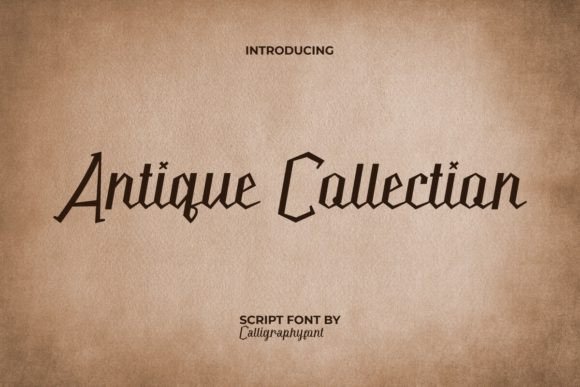
The Hunt for the Perfect Font: How Antique Collection Font Stole My Heart
I still remember the frustration of scrolling through font after font, searching for the perfect one to bring my design project to life. As a designer, I’ve had my fair share of late nights, sipping coffee and browsing through font libraries, trying to find that one font that will make my project stand out. My client was looking for a unique, vintage feel that would give their brand a touch of elegance and sophistication. That’s when I stumbled upon Antique Collection Font, a vintage script font that has a unique appearance with letters that form a hexagon and sharp lines, giving it an unmistakable antique feel.
First Impressions: What I Love About Antique Collection Font
As soon as I saw Antique Collection Font, I knew I had found something special. Here are a few things that I love about this font:
- ✨ Unique Hexagonal Letters: The hexagonal shape of the letters gives the font a distinctive look that’s hard to find elsewhere.
- ✅ Sharp Lines: The sharp lines and edges of the font give it a crisp, clean look that’s perfect for designs that need a bit of edge.
- 💫 Antique Feel: The font has a genuine antique feel that adds a touch of elegance and sophistication to any design.
- 🎨 Versatility: Antique Collection Font is perfect for a wide range of creative projects, from brand logos and catalogs to invitations and packaging design.
While Antique Collection Font is an amazing font, there are a few quirks to consider:
- 🤔 Legibility at Small Sizes: While the font looks great at larger sizes, it can be a bit tricky to read at smaller sizes. Be sure to test it out at different sizes to ensure it works for your project.
- ⚠️ Limited Use in Body Text: While Antique Collection Font is perfect for headlines and titles, it may not be the best choice for body text. Its unique shape and sharp lines can make it difficult to read in large blocks of text.
One of the best things about Antique Collection Font is its OpenType features and glyphs. Here are a few tips for getting the most out of these features:
- 🌟 Stylistic Alternates: Experiment with different stylistic alternates to add some variety to your text.
- 🔍 Glyphs: Use glyphs to add special characters and flourishes to your text.
The Story Behind Antique Collection Font
While the true story behind Antique Collection Font may be a mystery, it’s easy to imagine that it was inspired by vintage signs and typography from the early 20th century. Perhaps the designer was flipping through old books and magazines, searching for inspiration, when they stumbled upon an old advertisement or logo that caught their eye. Whatever the inspiration, Antique Collection Font is a true gem that adds a touch of elegance and sophistication to any design.
| Font Name | Antique Collection Font |
| Author | CalligraphyFonts |
| What is Antique Collection Font? | Antique Collection Font is a vintage script font with a unique appearance, featuring hexagonal letters and sharp lines. |
| What can I use Antique Collection Font for? | Antique Collection Font is perfect for a wide range of creative projects, including brand logos, catalogs, invitations, packaging design, and more. |
| Is Antique Collection Font easy to read? | While Antique Collection Font is beautiful, it can be a bit tricky to read at smaller sizes. Be sure to test it out at different sizes to ensure it works for your project. |